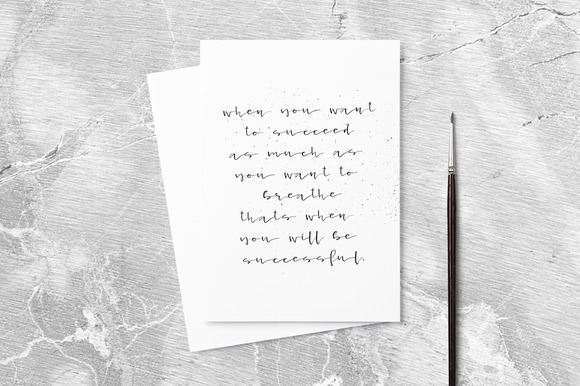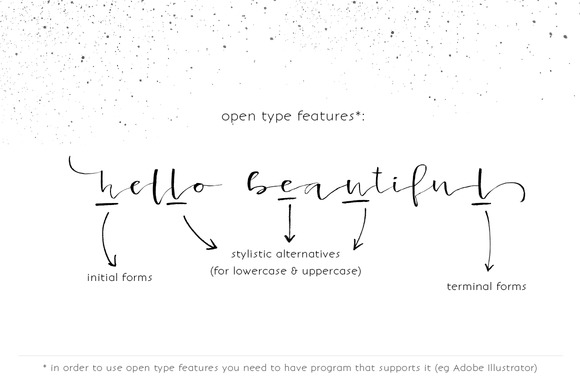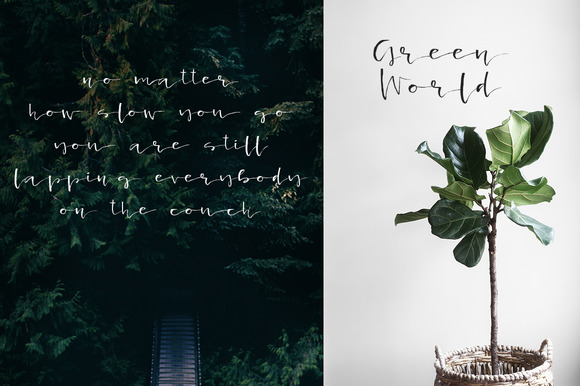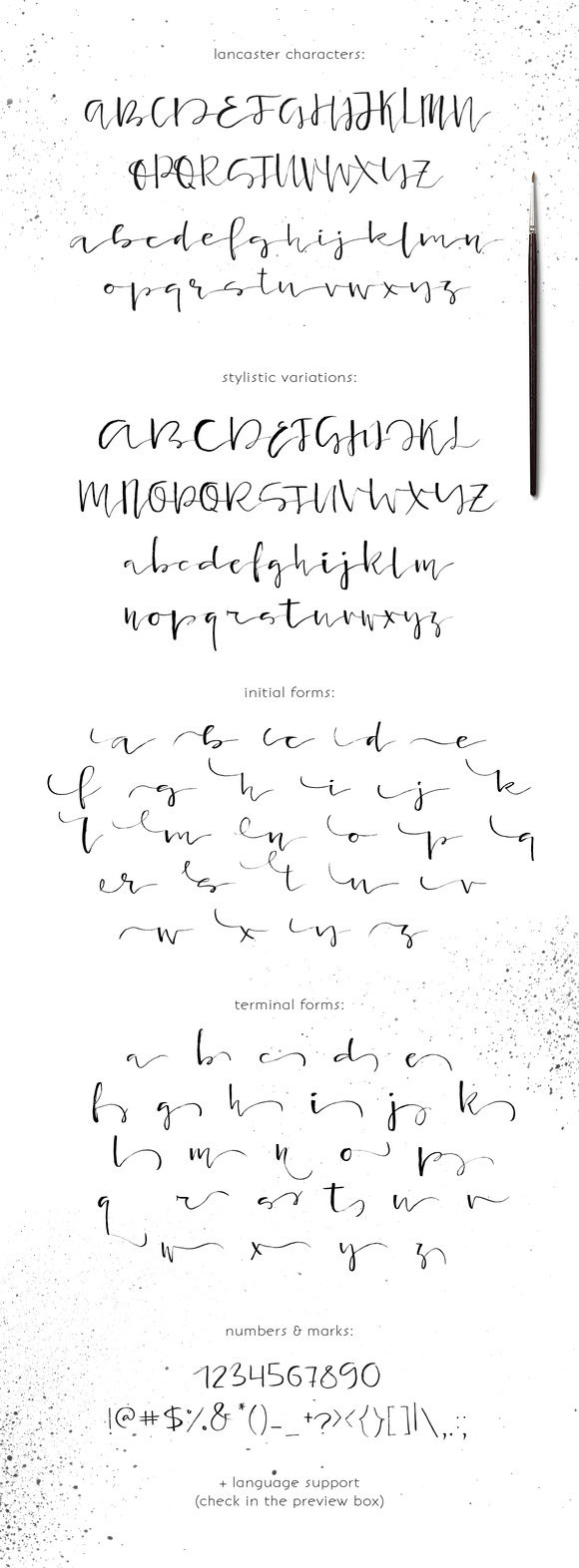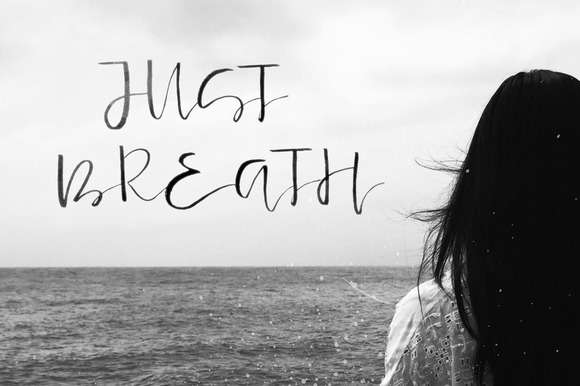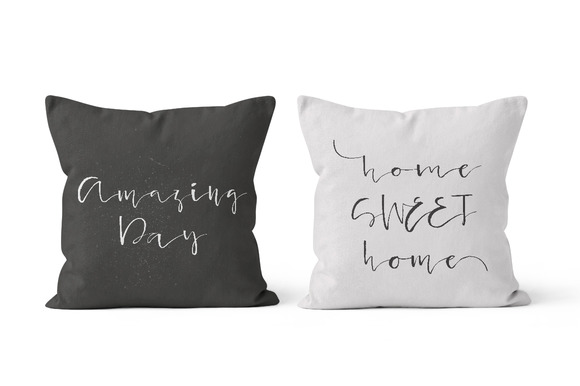
Introduction to Lancaster Font Font
Fonts play a crucial role in design, and the Lancaster Font font is a typeface that brings both character and versatility to any project. Whether you’re working on a branding project, a website, or a print design, the Lancaster Font font offers a unique style that can elevate your work.
Lancaster is a very fine calligraphic font.
It features sophisticated lines and swashes with makes it a great font for formal occasions .
Key Features of Lancaster Font Font
Why Choose Lancaster Font Font?
The Lancaster Font font is more than just a typeface – it’s a design tool that helps you communicate your message with style and clarity. Its unique character set and versatile design make it suitable for a wide range of applications, from elegant invitations to bold headlines.
With its carefully crafted letterforms and balanced proportions, the Lancaster Font font ensures readability and visual appeal across all mediums.
What makes Lancaster Font font special?
The Lancaster Font font stands out with its unique design, exceptional readability, and versatility across various design applications.